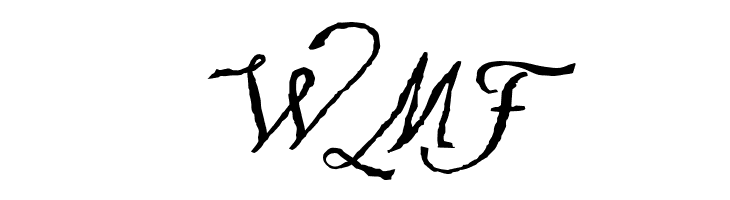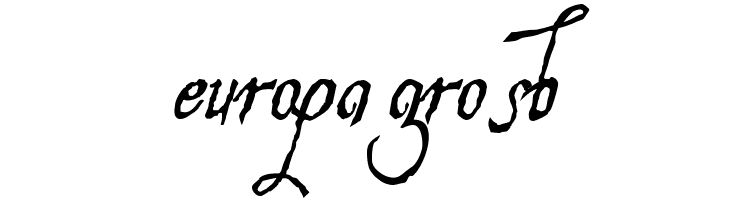
An ornate, decorative font with calligraphic elegance and intricate flourishes.
( Font by Berry Brooks - Fontocide )
A whimsical and playful font with bold, irregular letterforms and swirling embellishments.
( Fonts by Måns Grebäck )
A graceful script font with fluid, interconnected letters and elegant flourishes.
( Fonts by JOEBOB graphics )
A bold, brushstroke-style font with a dynamic, textured appearance.
An elegant script font with flowing, cursive strokes and high contrast.
A lively, flowing script font with elegant cursive letterforms.
A dynamic handwritten font with fluid, expressive strokes.
A playful, bold serif font with rounded features and a whimsical style.
( Fonts by Fonthead Design - www.fonthead.com )
A playful, bold, and quirky hand-drawn font with a whimsical style.